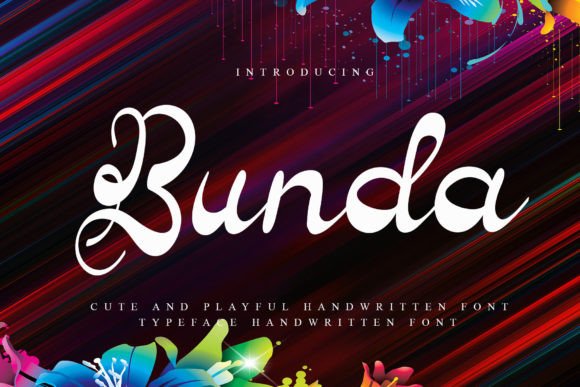
Behold, Bunda Font, the epitome of elegance and artistry, a script font that breathes life into your designs, transforming them into captivating masterpieces. Immerse yourself in a world of visual splendor as this font takes you on a journey of creativity and expression.
With Bunda Font, your wedding invitations and greeting cards transcend the ordinary, becoming exquisite tokens of love and affection. Each letter dances across the page, carrying a sense of intimacy and warmth that resonates with the soul. Elevate your billboards and logos to new heights, making a statement that commands attention and leaves an indelible mark on the minds of your audience.
Bunda Font is not just a collection of characters; it's an orchestra of strokes, each contributing its unique melody to the overall symphony of your design. Its varied baseline, reminiscent of a skilled calligrapher's hand, adds a touch of authenticity and charm that captivates the eye and stirs the emotions.
With Bunda Font, your ideas take on a life of their own, becoming tangible expressions of your imagination. Whether you're creating business cards, posters, or any other design that demands a personal touch, this font delivers with unmatched grace and sophistication.
But Bunda Font is more than just a beautiful face; it's also incredibly versatile and user-friendly. Its PUA encoding ensures effortless access to all glyphs and swashes, empowering you to unleash your creativity without limits.